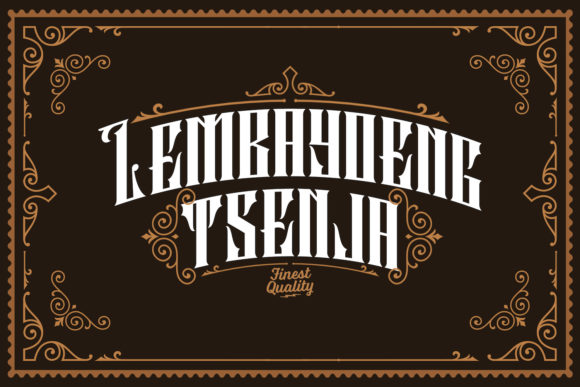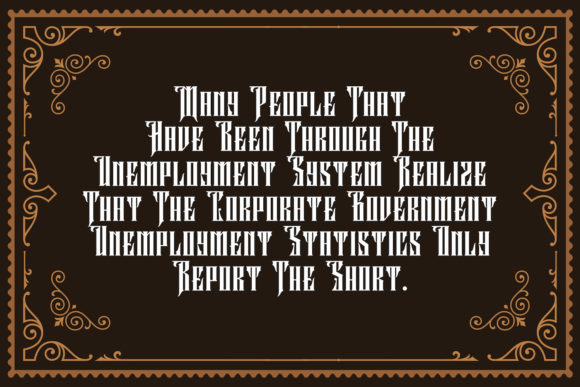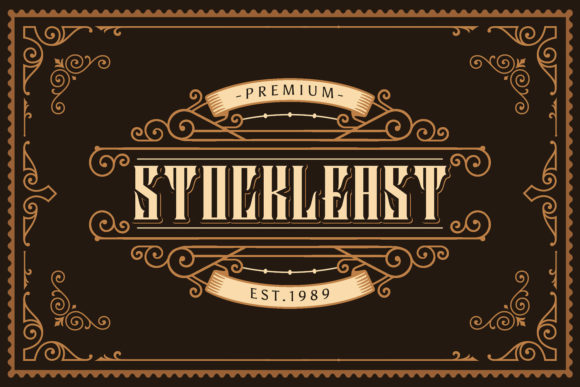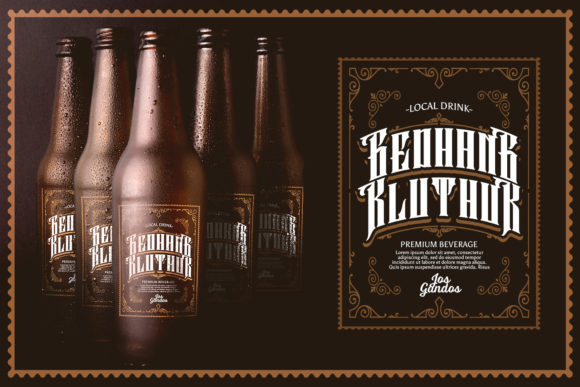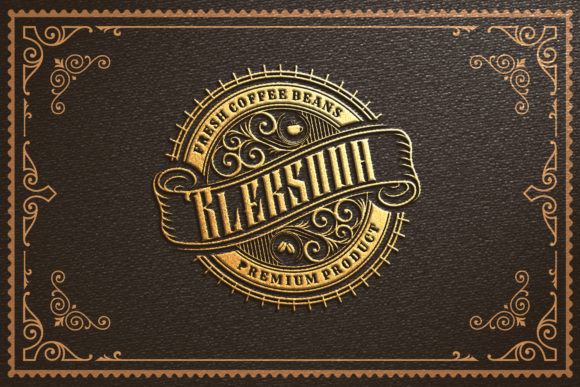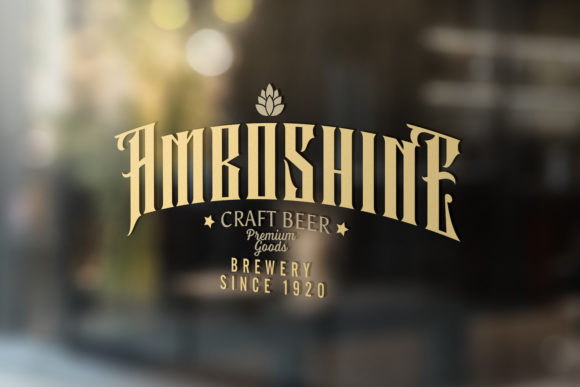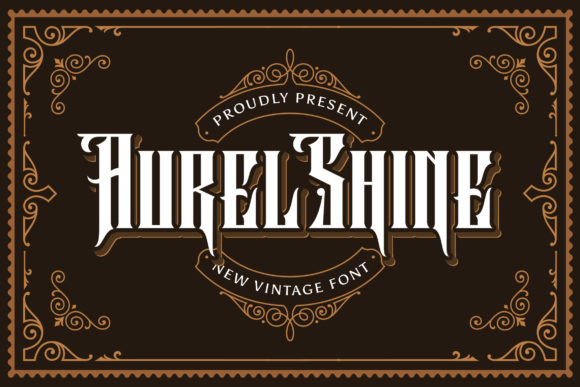
The Designer’s Delight: Aurel Shine Font
I’ll never forget the time I was working on a project for a client who wanted a vintage, mystical feel. I had spent hours scouring the internet for the perfect font, but nothing seemed quite right. That was until I stumbled upon Aurel Shine, a classic blackletter font that instantly transported me to a world of medieval grandeur and mystery. In this article, I’ll share my love for Aurel Shine, its features, and how to make the most of it in your designs.
An Honest Review of Aurel Shine
Aurel Shine is a stunning blackletter font that’s perfect for creating beautiful and eye-catching designs. Here’s what I love about it:
• ✨ Elegant and classic design that’s perfect for vintage or medieval-themed projects
• ✅ Extensive character set, including glyphs and stylistic alternates
• ✅ Works beautifully in both digital and print formats
Of course, no font is perfect, and Aurel Shine has a few quirks:
• 🤔 Some users may find the font a bit too ornate or over-the-top for certain projects
• ⚠️ Limited support for non-Latin scripts
The Story Behind Aurel Shine
Aurel Shine was inspired by the beautiful blackletter fonts of the Middle Ages. Its creator, a passionate typographer, wanted to bring a touch of elegance and sophistication to modern designs. With its extensive character set and OpenType features, Aurel Shine is the perfect font for designers, crafters, and creative hobbyists who want to add a touch of history and culture to their work.
What is Aurel Shine? Aurel Shine is a classic blackletter font that’s perfect for creating beautiful and eye-catching designs.
Is Aurel Shine suitable for body text? While Aurel Shine is highly legible, it’s best suited for headings and titles. For body text, a clearer font may be more suitable.
Is Aurel Shine available in multiple languages? Aurel Shine supports multiple languages, but may have limited support for non-Latin scripts.